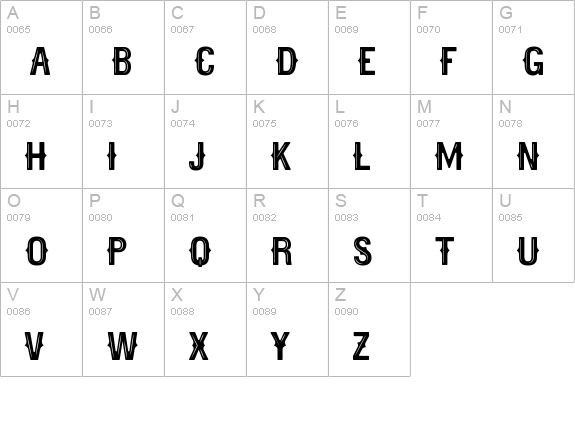
ModernWhiskey_2 Font Details
ModernWhiskey_2 font is a sleek and sophisticated typeface that exudes elegance and charm. With its clean lines and modern aesthetic, this font is perfect for adding a touch of class to any project. Whether you're designing a logo, creating a poster, or crafting a social media post, ModernWhiskey_2 is sure to make a statement. The font features a unique blend of sharp angles and smooth curves, giving it a contemporary feel that is both versatile and eye-catching. Its bold weight commands attention, while its subtle details add a touch of refinement. Best of all, ModernWhiskey_2 is available for free download at FontsMarket.com. This means you can easily access this stunning font and incorporate it into your designs without any cost. Don't miss out on the opportunity to elevate your projects with the timeless appeal of ModernWhiskey_2 font. Download it today and see the difference it can make!